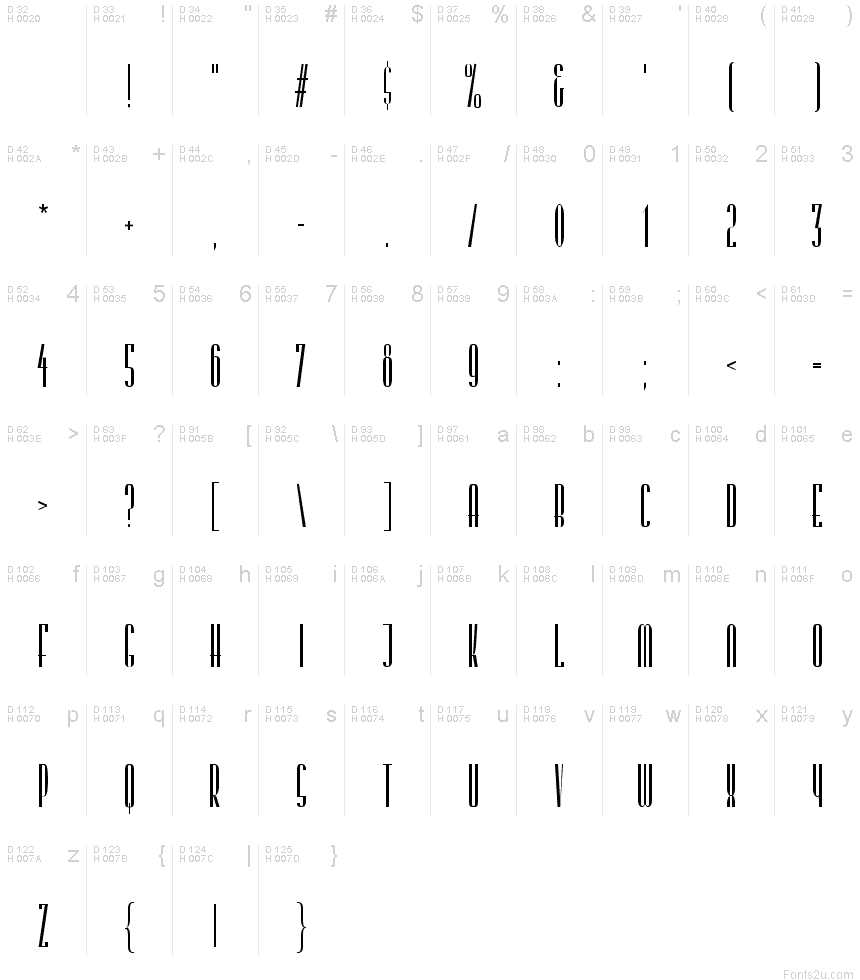
CajunQueen
Cajun Queen font by Jerry L. Feyerabend is a free font with ultra-tall, tightly packed letters that feel like a neon sign squeezed into a narrow doorway. The thin vertical columns and tiny crossbars create a strong rhythm, giving headlines a theatrical, almost cabaret-like energy while still staying crisp and readable at larger sizes.
This free font works best when you want words to stack up dramatically in posters, logos, book covers, packaging, nightclub flyers, or bold title cards. Use CajunQueen big, with plenty of breathing room around it, and pair it with a simple sans serif in smaller text to keep layouts balanced and easy to scan.